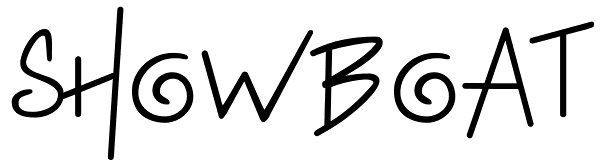
Showboat
You are looking at the friendliest, happiest and most faithful of puppies. It comes to greet you as soon as your eyes see it, radiates its joy, wags its tail, jumps in circles, and begs to be played with. Showboat is a very unique bragger of a font...
Showboat
Showboat Alt
Showboat Alt Bold
Showboat Bold